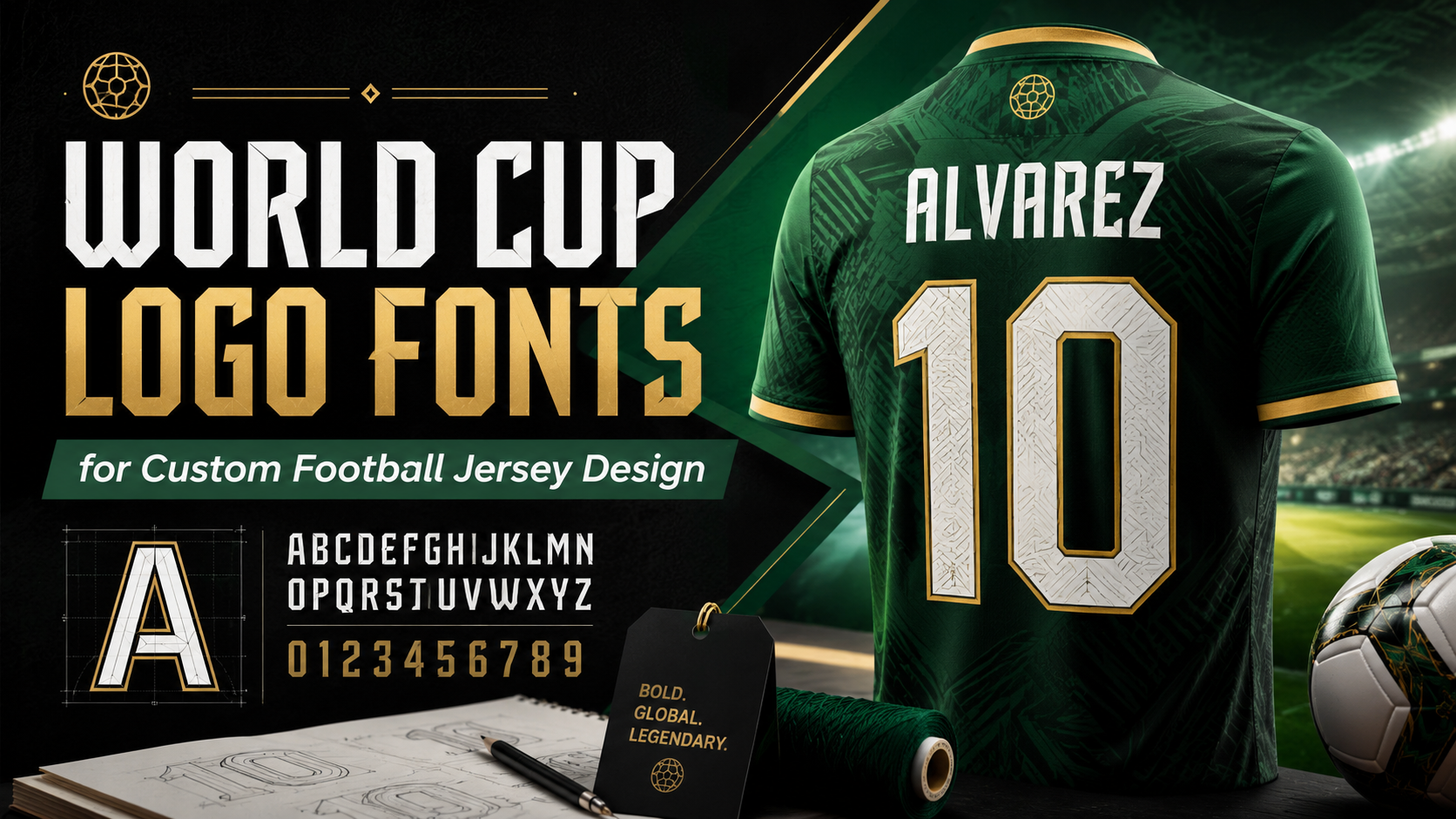
World Cup Logo Fonts: A Practical Guide to Custom Football Jersey Design
A football jersey can have an attractive color palette, detailed patterns, and high-quality fabric, but the design may still feel unfinished when the typography is wrong.
Player names that are too wide, numbers that disappear from a distance, and overly decorative lettering can quickly make an otherwise promising jersey look amateur. This is why choosing the right World Cup logo font should be treated as part of the design system, not as a final decorative decision.
World Cup-inspired typography usually combines bold proportions, strong silhouettes, and a sense of movement. Used carefully, these characteristics can help a local club, school team, community tournament, or supporter brand create a more confident and professional identity.
However, inspiration should not mean copying an official tournament logo. The goal is to understand why the typography works and apply those principles in an original way.
Why World Cup-Inspired Typography Works on Football Jerseys
Major football tournaments leave behind more than memorable matches. They also create visual languages that people associate with competition, national identity, movement, and celebration.
Typography is a major part of that visual language.
A strong sports typeface usually has clear letterforms, controlled spacing, and enough visual weight to remain recognizable from across a pitch. These qualities are especially important when the font is used for player names, jersey numbers, sponsor marks, and supporter merchandise.
Bold letterforms can also make production easier. They generally contain fewer fragile details, making them more suitable for vinyl cutting, heat transfer, embroidery, and small-scale printing.
That does not mean every heavy font will work. A font can be visually powerful but still fail when:
- Similar characters are difficult to distinguish.
- Counters become too small at reduced sizes.
- Player names become excessively wide.
- Numbers lose clarity when viewed from a distance.
- Decorative details disappear during production.
The best football typography balances personality with function.
What Font Is Used for the FIFA World Cup 2026 Identity?
FIFA unveiled the official FIFA World Cup 26 brand on May 17, 2023. The central emblem places an image of the World Cup Trophy over a stacked “26,” creating a flexible foundation that can be adapted across the tournament and its 16 host cities.
The wider 2026 visual identity uses a custom typeface called FWC26, credited to Alistair McCready at Monolith. It is an ultra-condensed geometric design created to deliver strong visual impact across signage, uniforms, digital graphics, and large-scale tournament communication.
Its tightly packed structure allows large words to occupy relatively narrow spaces. This is useful in stadium environments, where typography must compete with photography, advertising, motion graphics, and architectural scale.
However, condensed display fonts also have limitations. At small sizes, narrow internal spaces and closely positioned characters may reduce readability. This is why a typeface that works well on a poster or stadium banner may not be the best choice for every scoreboard, mobile interface, or small jersey detail.
How to Capture the World Cup 2026 Mood Without Copying It
The official tournament typeface is a proprietary part of FIFA’s identity. Designers should not reproduce the official logo or present unofficial merchandise as an authorized FIFA product.
You can still create a similar contemporary atmosphere by focusing on broader design characteristics:
- Condensed or semi-condensed proportions
- Heavy weights
- Geometric construction
- Compact tracking
- Simple, recognizable numbers
- Minimal decorative details
- Strong contrast against the jersey fabric
Instead of searching for an exact replica, choose a typeface that gives your team its own identity.
Fonts such as Söhne Schmal, Bebas Neue, Archivo Narrow, Teko, Barlow Condensed, Anton, and selected grotesque families can provide different interpretations of a bold contemporary sports aesthetic.
Montserrat Black, Outfit, and Space Grotesk can also work for supporting text, team names, campaign graphics, or merchandise. They are wider and less specialized than an ultra-condensed display face, but their clean construction makes them flexible.
Always test the actual player names and numbers before selecting a font. A typeface that looks impressive when spelling “WORLD CUP” may behave very differently with a long surname or a sequence such as 18, 68, or 88.
Recommended Fonts for a Strong and Sporty Jersey
A complete jersey identity does not always require one font for everything. In many cases, the strongest result comes from combining a distinctive display face with a simpler supporting typeface.
Here are several directions worth considering.
1. Protura — A Strong Masculine Sans Serif
For a more original commercial option, Protura masculine sans serif font offers a solid geometric structure with a confident and disciplined appearance.
Its clean shapes make it suitable for team names, promotional graphics, sportswear packaging, tournament posters, and selected jersey applications. The font can help a local team move away from predictable varsity lettering and toward a more contemporary visual identity.
Before using it for player names or numbers, create a complete test sheet containing:
- The longest player name
- All numbers from 0 to 9
- Similar pairs such as 3 and 8
- Narrow letters such as I and J
- Wide letters such as M and W
- The design at its final production size
This simple test can reveal spacing and readability problems before the jersey enters production.
2. Jersey M54 — A Traditional Athletic Direction
For a classic American collegiate or varsity appearance, a typeface such as Jersey M54 can provide the familiar slab-based structure associated with school sports and traditional athletic uniforms.
This style works particularly well for large back numbers, supporter shirts, team jackets, and retro tournament merchandise.
Because varsity fonts already have a strong visual identity, avoid combining them with too many additional effects. Multiple outlines, shadows, textures, and gradients can make the result look dated or difficult to print.
3. United Sans — Flexibility for Long Player Names
Long player names are a common challenge in jersey design. A wide font may look excellent in a short word but become compressed or distorted when it must fit within a fixed area.
A family with condensed and extended widths gives the designer more control. United Sans is one example of a broad system that can support different typographic roles.
A condensed weight can be used for player names, while a heavier and wider style can be reserved for numbers or campaign graphics. The result feels related without forcing every element to use identical proportions.
Five Ways to Use a World Cup Logo Font in Apparel Design
Owning a good sports font is only the beginning. Placement, scale, spacing, contrast, and production method determine whether the final design actually works.
1. Player Names With a Clear Visual Presence
The upper back of a jersey is the primary location for the player’s name. This area must remain readable while the athlete is moving and when the shirt is viewed from different angles.
Start by testing the longest name on the team. Do not design only around the shortest or most visually convenient example.
Adjust overall tracking first, then correct individual kerning pairs where necessary. Avoid squeezing the entire word horizontally unless the font license and design system permit that transformation. Excessive distortion can damage the personality and consistency of the typeface.
For especially long names, consider:
- A condensed font width
- Slightly reduced tracking
- A smaller but still readable size
- A gentle arch
- A separate style for names and numbers
2. Jersey Numbers That Remain Legible at a Distance
The back number is usually the largest typographic element on a football jersey. It must be recognizable from the stands, on broadcast footage, and in photography.
When evaluating a jersey number font, pay close attention to similar forms. The differences between 3 and 8, 1 and 7, or 0 and 6 should remain visible at speed and from a distance.
Small details can add personality, but they should not weaken recognition. Team crests, perforated textures, internal patterns, and decorative cuts should be tested at final size before production.
A detail that looks attractive on a large monitor may disappear or create weak points when cut from vinyl.
3. Team Typography Across the Chest
The front of the shirt may include the club name, nickname, location, founding year, or sponsor.
A subtle arch can help the lettering follow the natural shape of the chest. However, the curve should be controlled. An extreme arch can make the design feel more like a novelty shirt than a professional uniform.
Consider the visual relationship between the team name, crest, sponsor, and shirt pattern. These elements should not compete for the same level of attention.
When the crest is complex, a simpler typeface often produces a more balanced result.
4. Small Slogans Around the Collar
Team mottos and short messages are often placed inside the collar or below the back neckline. These details create an emotional connection without dominating the main jersey design.
Small text requires a font with open counters and simple construction. A highly condensed display typeface may become difficult to read at this scale.
Print a physical sample before approving production. A slogan that appears clear at 200% zoom may become unreadable when printed at a height of only a few millimeters.
5. Supporter Merchandise and Limited Editions
Football typography can extend beyond the match jersey.
Supporter T-shirts, scarves, tote bags, caps, posters, and social media graphics provide more freedom for expressive compositions. Quotes, chants, important dates, city names, and historic match references can become the main visual element.
This is also where an original World Cup logo font direction can create commercial value. Instead of reproducing official tournament branding, develop a visual system around your own team, neighborhood, city, or supporter community.
Always confirm that your font license covers merchandise and commercial products.
The Best File Formats for Jersey Production
[Suggested image alt text: A close-up of football jersey printing with vector number artwork prepared for heat press production]
The best production file depends on the printing method and the requirements of the supplier.
For names, numbers, logos, and simple typography, vector artwork is usually preferred because it can be resized without losing sharpness.
Common vector formats include:
- AI
- EPS
- SVG
- CDR when requested by a CorelDRAW-based supplier
Before sending the file, convert the final typography to outlines while keeping a separate editable master file. Outlining prevents missing-font errors when the supplier opens the design.
Raster artwork can also be appropriate, particularly for full-color sublimation, DTF graphics, photographic textures, and complex illustrations.
When supplying raster artwork:
- Work at the final print dimensions.
- Use the resolution requested by the printer.
- A target of 300 DPI is commonly suitable for detailed artwork.
- Use a transparent PNG or TIFF when transparency is required.
- Confirm the expected color profile.
- Avoid enlarging a small downloaded image.
The production supplier should always make the final technical recommendation because different machines, inks, transfer films, and fabrics have different requirements.
Improving Typographic Color Contrast
A good typeface can still fail when the color contrast is too weak.
Dark navy lettering on a black jersey may look sophisticated on a bright monitor but disappear under stadium lighting or in mobile photography. Similarly, thin white letters may become lost against a highly detailed sublimation pattern.
Test the design in grayscale. When the name and number are difficult to distinguish without color, the tonal contrast probably needs improvement.
Possible solutions include:
- A light outline around dark lettering
- A dark keyline around light lettering
- A solid backing shape
- Reduced background detail behind the number
- A simpler shirt pattern in important identification areas
- Fluorescent or high-visibility accents used selectively
Outlines should be thick enough to survive production but not so heavy that they change the original character of the font.
Common Mistakes to Avoid
One of the most common mistakes is choosing a font based only on a promotional specimen.
Font specimens are designed to show a typeface under ideal conditions. Jersey production introduces completely different limitations: movement, fabric texture, distance, lighting, folds, and printing tolerances.
Other frequent mistakes include:
- Using an unlicensed font on commercial merchandise
- Copying an official tournament logo too closely
- Adding too many outlines and shadows
- Using the same display font for tiny supporting text
- Ignoring long player names
- Failing to test every numeral
- Sending editable text without embedding or outlining the font
- Approving the design without a physical production sample
A ten-minute test sheet can prevent an expensive reprint.
Conclusion
A professional football identity is not created by adding a random “sporty” font at the end of the process.
The typeface must work with the team crest, shirt pattern, production method, player names, numbers, sponsors, and supporter merchandise. It must also remain readable while the player is moving and when the jersey is viewed from a distance.
A good World Cup logo font can provide useful inspiration through its boldness, rhythm, and sense of movement. The strongest result, however, comes from adapting those principles rather than copying an official identity.
Choose a font with the right license, test it under real production conditions, and give your team a typographic system that feels recognizably its own.
Frequently Asked Questions About Football Jersey Typography
1. Can I use a World Cup-inspired font commercially?
That depends on the individual font license.
A font may be free for personal projects but require a paid commercial license for client work, merchandise, uniforms, websites, or downloadable templates. Read the license rather than relying only on the word “free” in a download title.
Using a legally licensed font does not automatically give you permission to reproduce FIFA logos, tournament emblems, national-team crests, sponsor marks, or other protected branding.
2. Is there a standard size for adult jersey numbers?
There is no single universal size for every football competition.
Back numbers around 25–30 cm in height are common on adult jerseys, while smaller front or shorts numbers are often around 8–12 cm. The correct measurement depends on the competition regulations, jersey size, typeface proportions, and printing method.
Always check the relevant league or tournament rules before production.
3. Which printing method is most durable for jersey typography?
The best method depends on the fabric and intended use.
Sublimation is highly durable on compatible polyester because the color becomes part of the fabric rather than sitting on top of it. Polyurethane heat-transfer vinyl is widely used for clean player names and numbers. DTF is flexible for detailed, multicolor graphics and smaller production runs.
Durability also depends on correct temperature, pressure, curing, material quality, garment preparation, and washing instructions.
4. Should player names and numbers use the same font?
Not necessarily.
Using related styles from the same family can create consistency, but different widths may improve functionality. For example, a condensed style may suit long names, while a wider and heavier design may make numbers more recognizable.
The two elements should look related even when they are not identical.
5. What should I test before approving a jersey font?
Test the complete alphabet, every numeral, the longest player name, the shortest player name, sponsor text, collar details, and the final color combinations.
View the design at actual size, print a sample, and check it from several meters away. This provides a far more reliable evaluation than viewing an enlarged mockup on a computer screen.